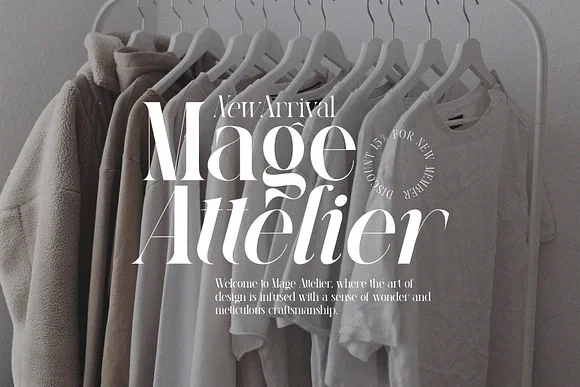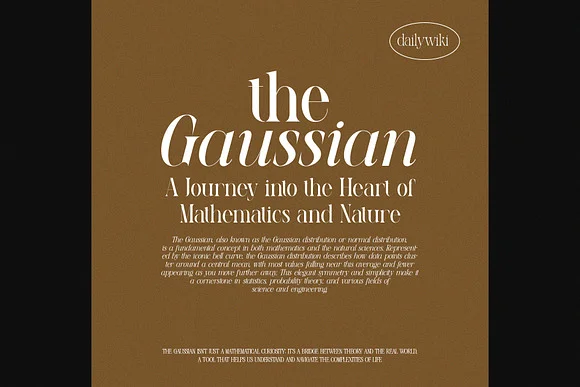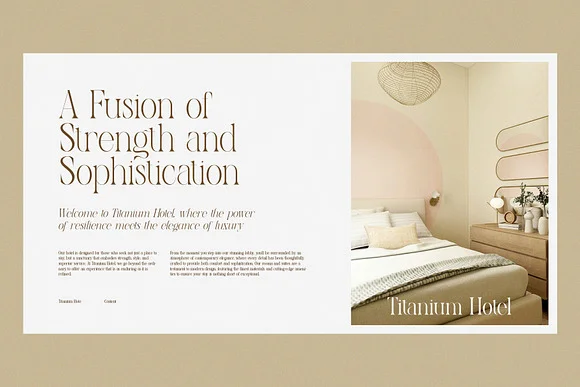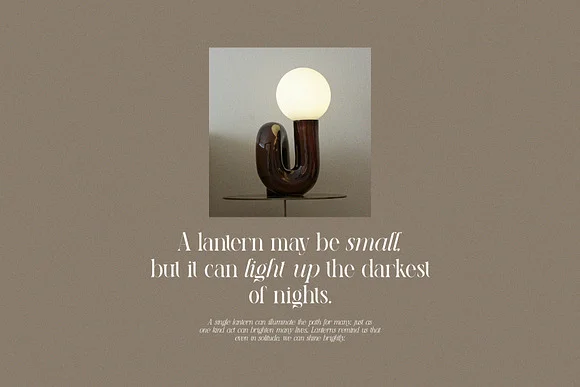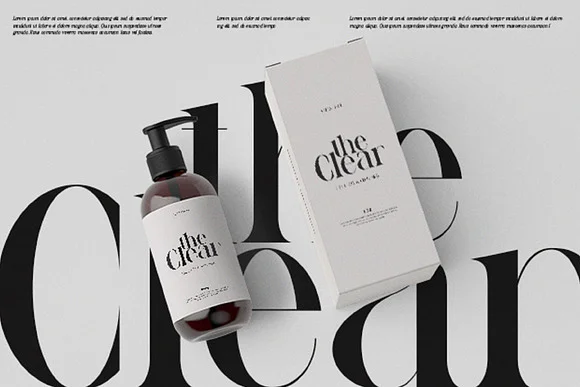
MELODIES ROMANTIC Elegant Serif Font
When a design brief calls for both controlled contrast that rewards close inspection and immediate visual impact, type choices matter — MELODIES ROMANTIC Elegant Serif answers that brief. The typeface brings a classically grounded sensibility to a broad range of creative disciplines, with versatility across print and screen contexts that holds up whether the work is print-first or screen-first.
In practice, MELODIES ROMANTIC Elegant Serif proves particularly effective for premium packaging, academic titles, corporate identity, product labels, university press publications. Designers reaching for it find that the type decisions feel resolved rather than laboured — a useful quality when client timelines are tight.
The range of applications extends to advertising campaigns, financial reports, logo design, web design. That breadth is deliberate: the proportions and spacing were stress-tested across a wide range of mock briefs before the typeface was finalised.
Each character has been drawn with bracketed serifs and subtle optical corrections that prevent overshoot at display sizes. The contrast ratio between thick and thin strokes guarantees legibility in both print and high-resolution digital contexts.
Art directors commissioning type-led campaigns find MELODIES ROMANTIC Elegant Serif a reliable choice for projects that demand both personality and restraint. The design avoids the self-conscious quirkiness that dates quickly, settling instead for considered distinctiveness that holds up over time.